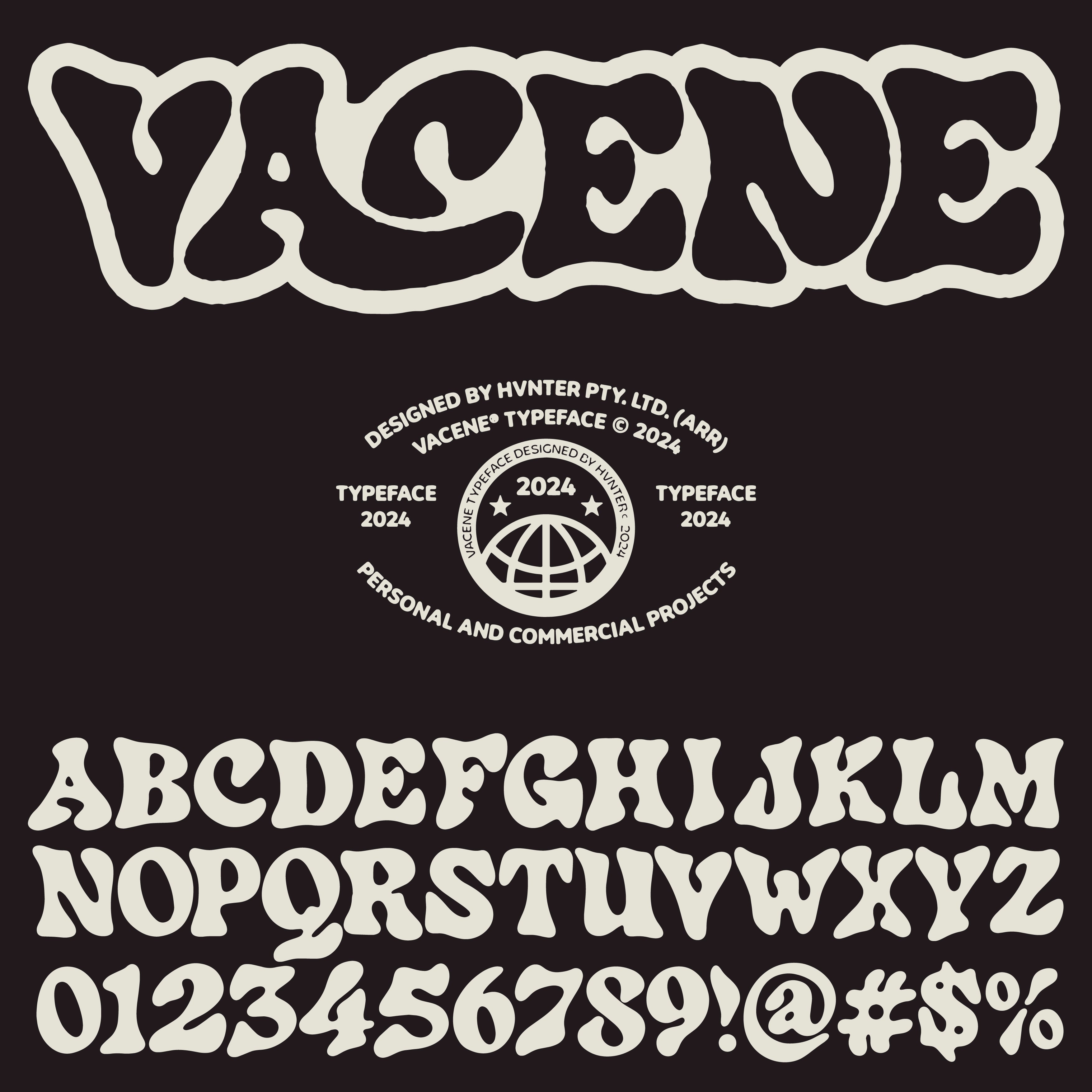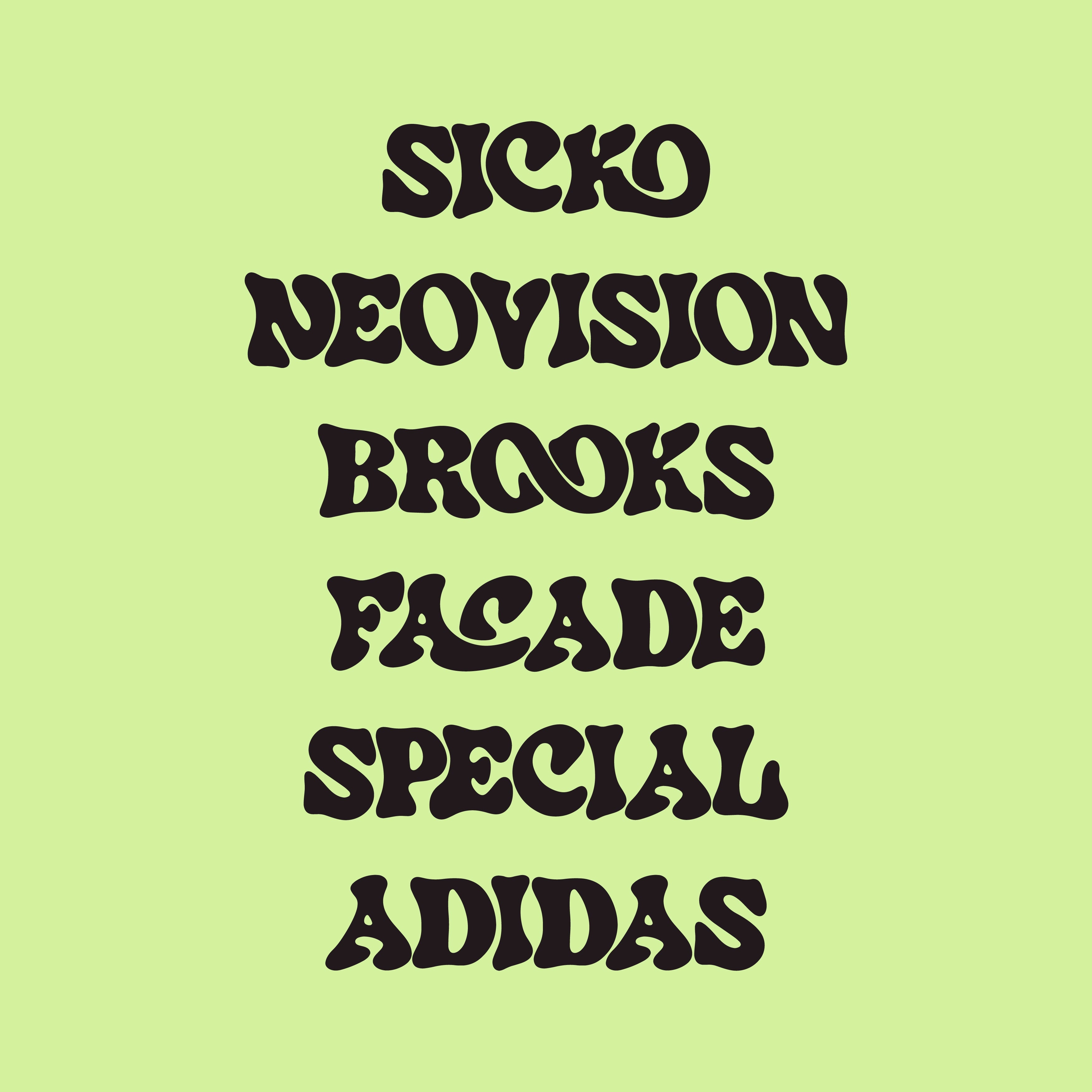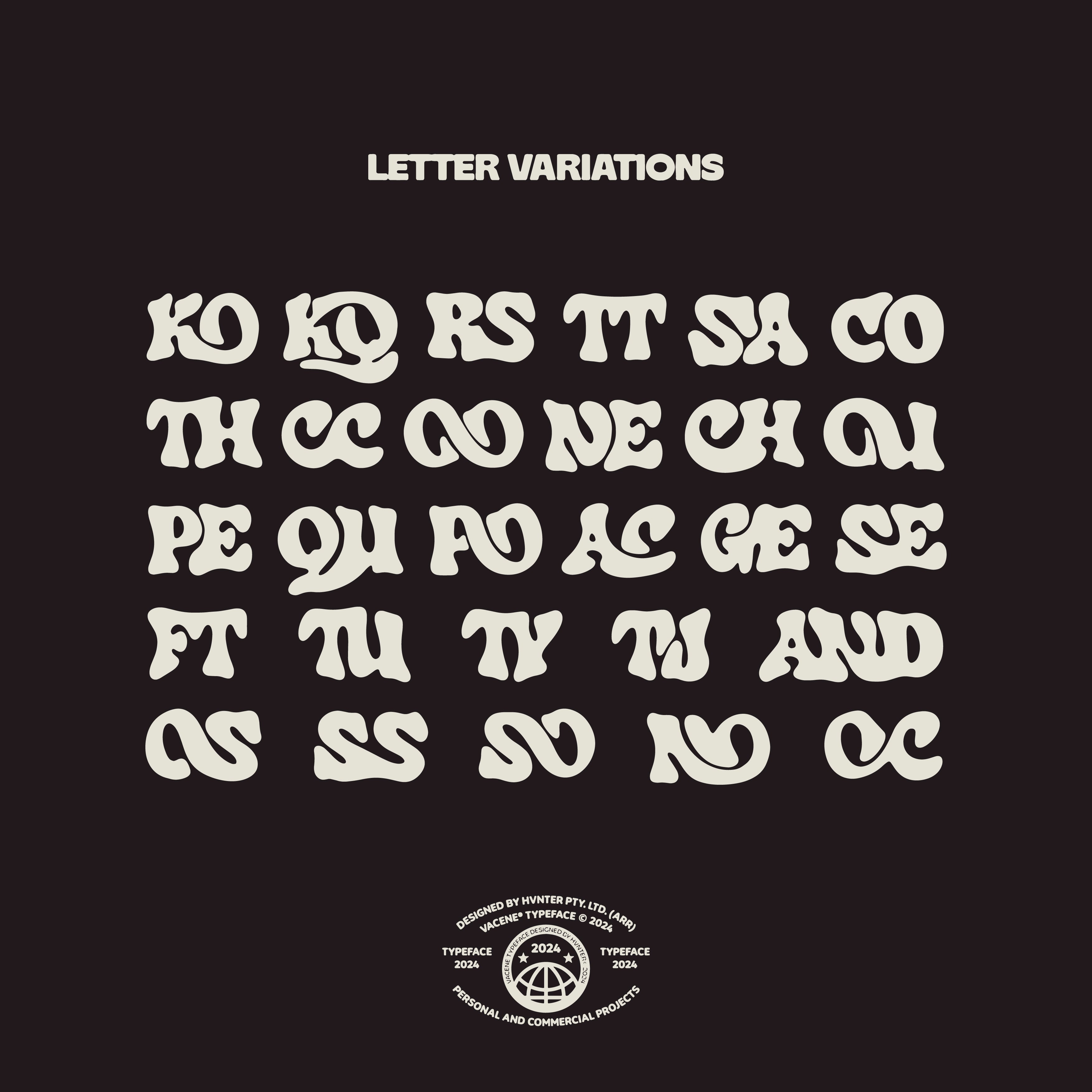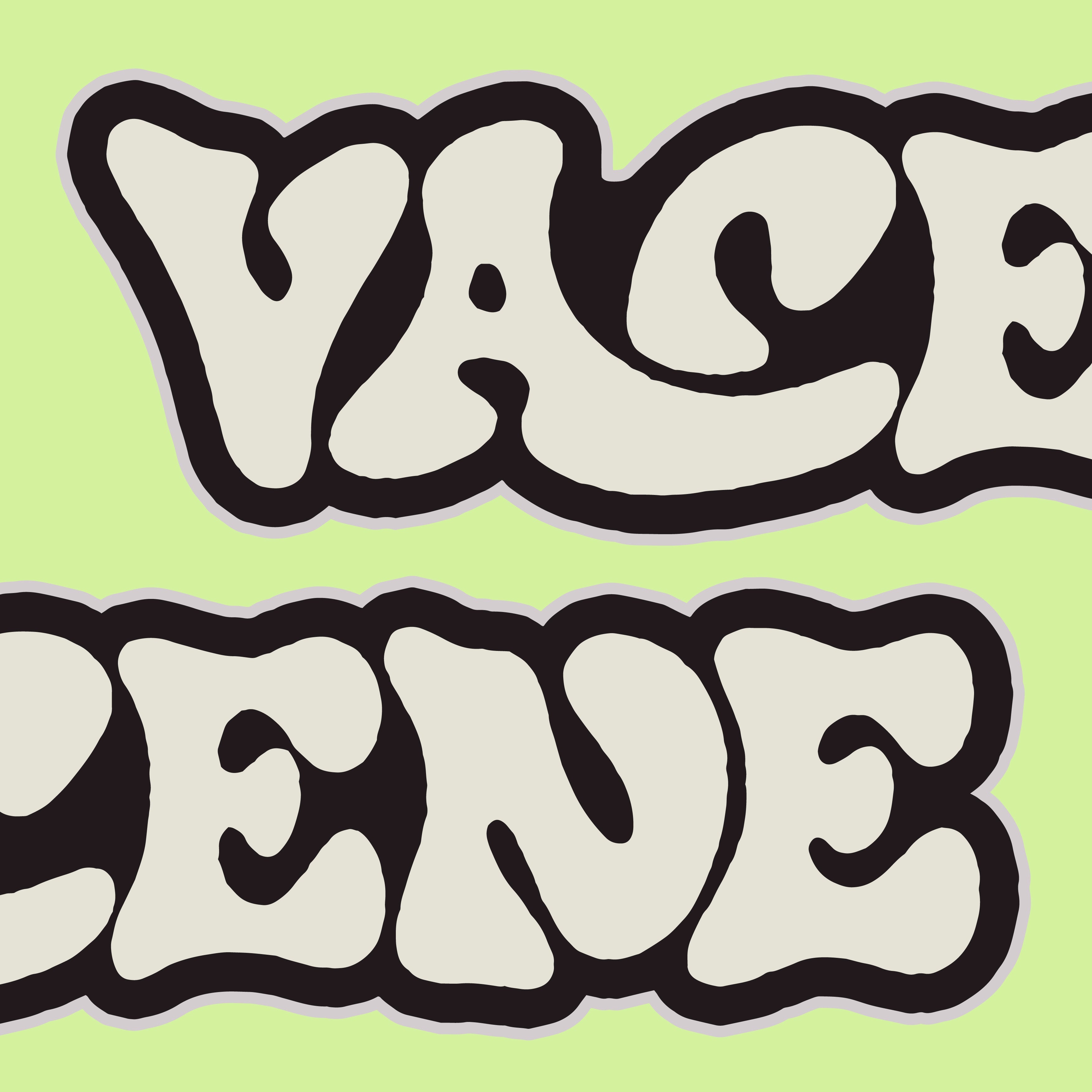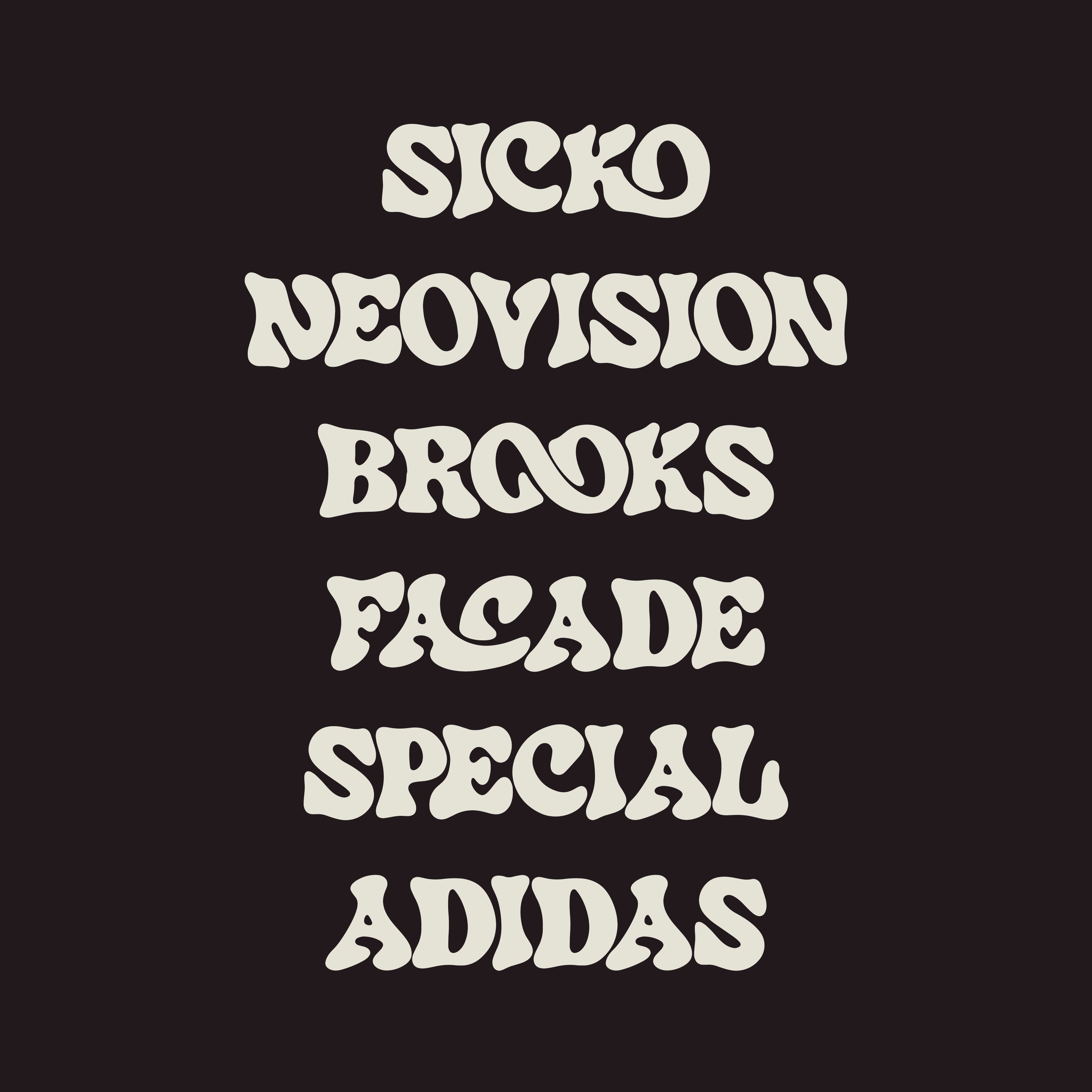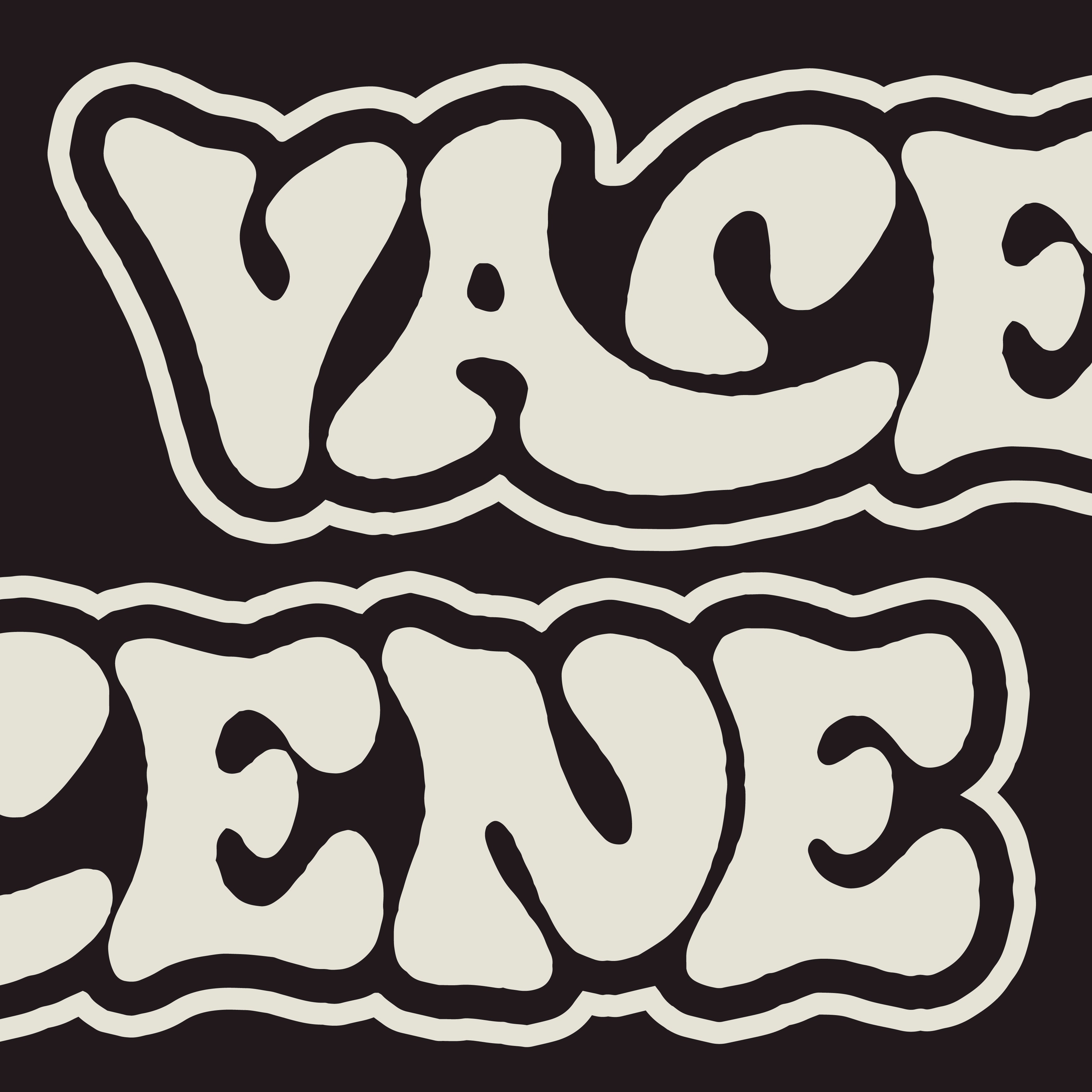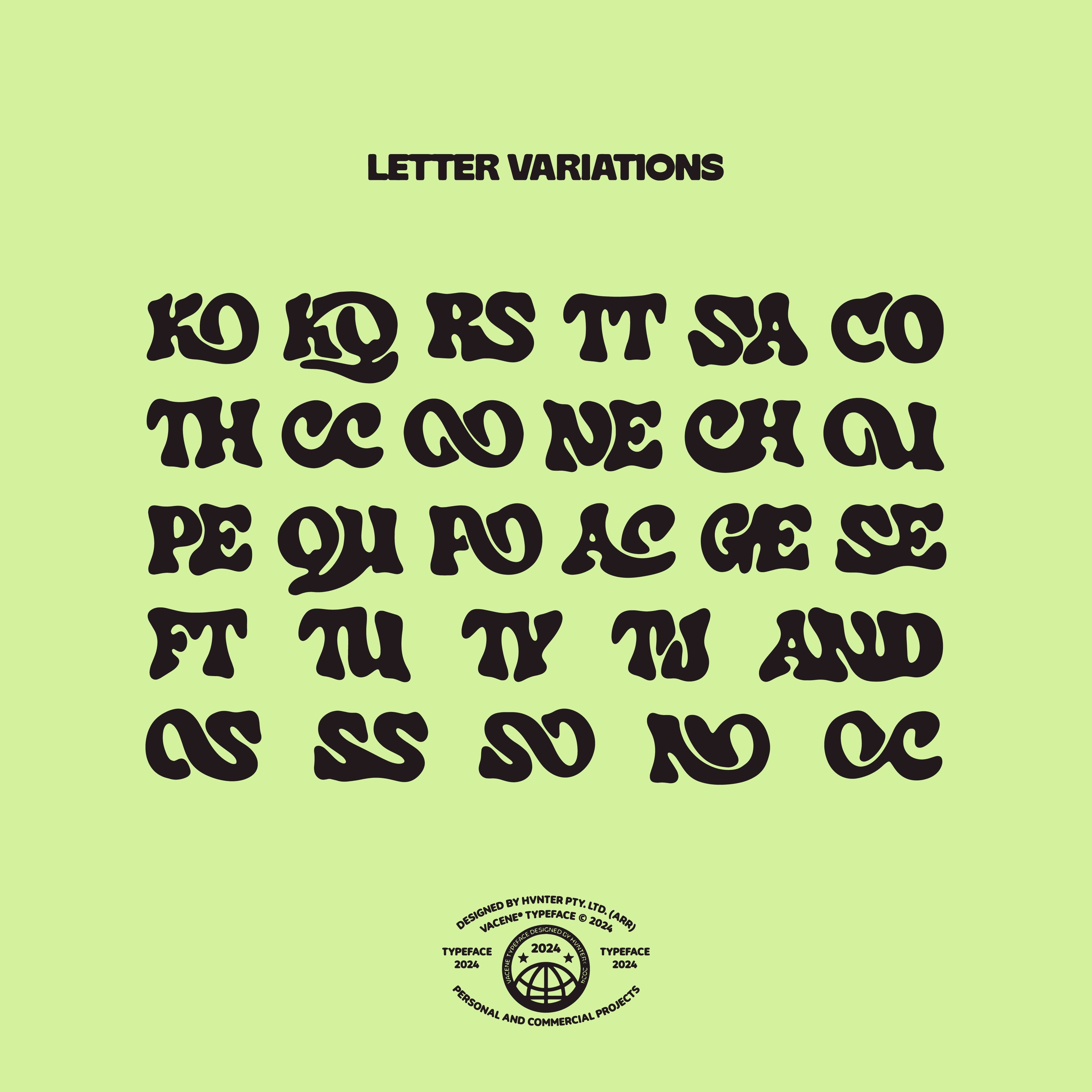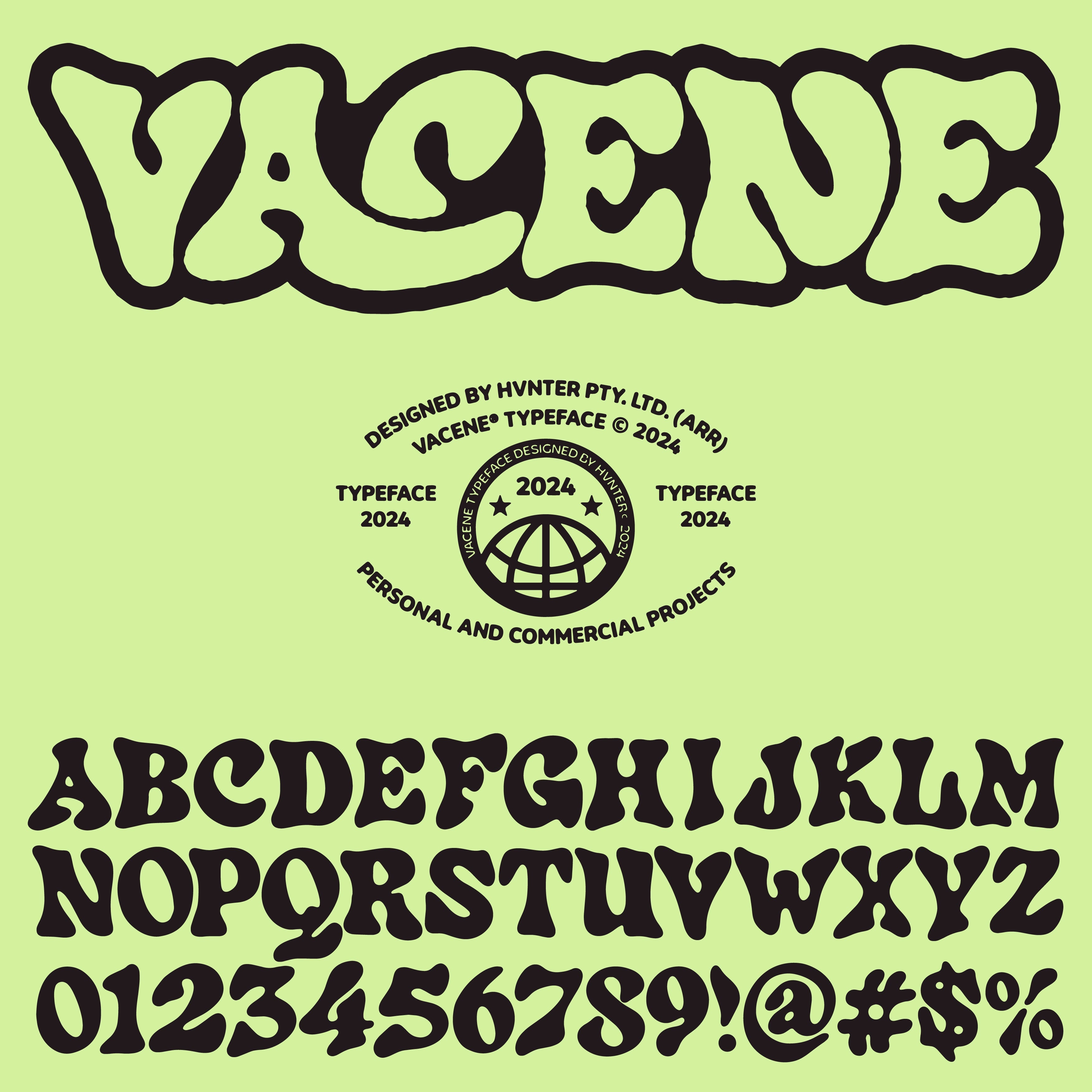
Vacene Typeface
The Vacene Typeface is a hand-drawn font that includes a complete set of letters (A-Z), numbers (0-9), basic symbols, and letter variations. It's a bold, display typeface with a bubble style, and it carries a retro, vintage, and Y2K aesthetic.
Ideal for vintage-inspired graphic design and playful branding projects. Perfect for posters, album covers, and social media graphics, ensuring a unique and engaging visual appeal.